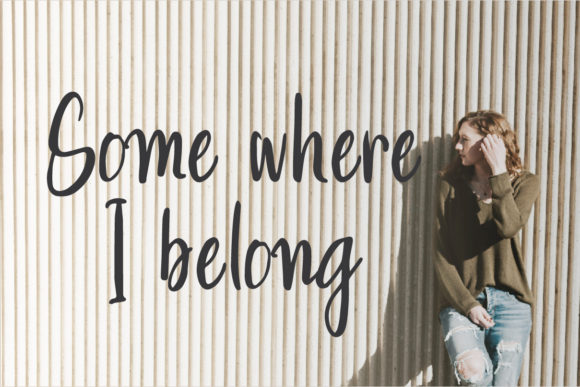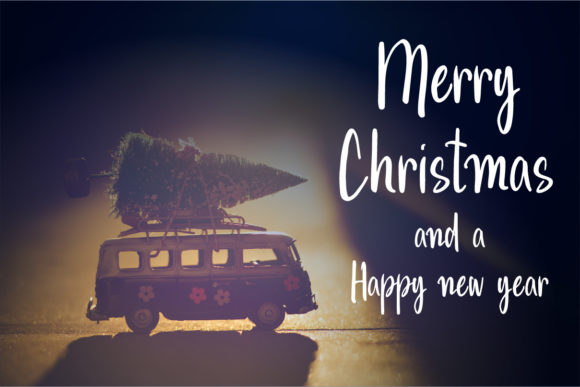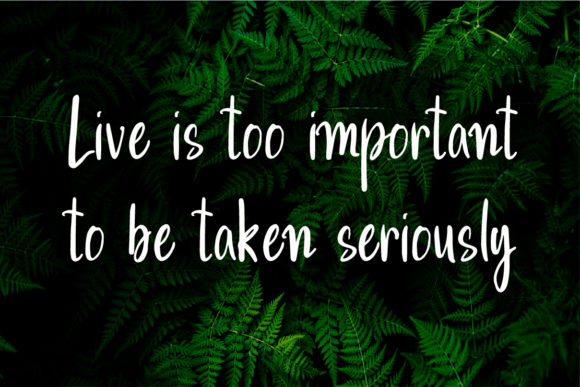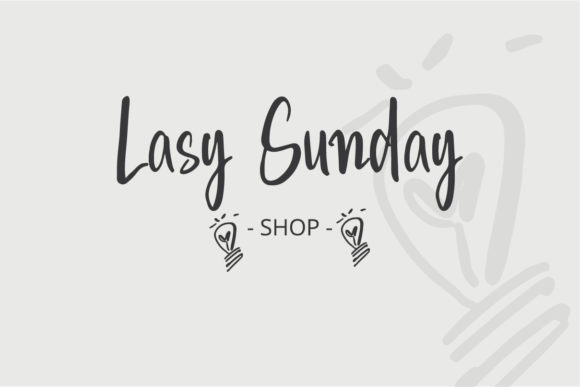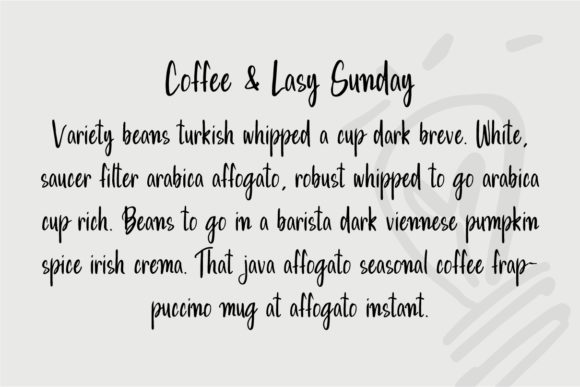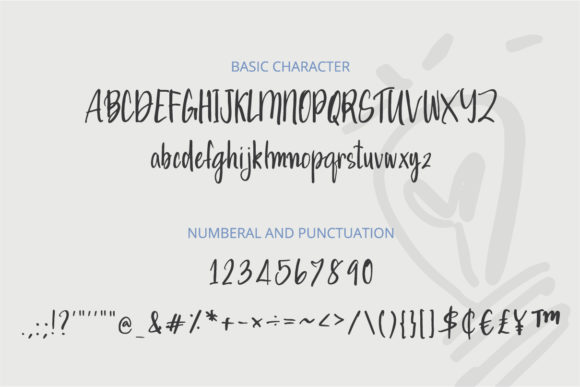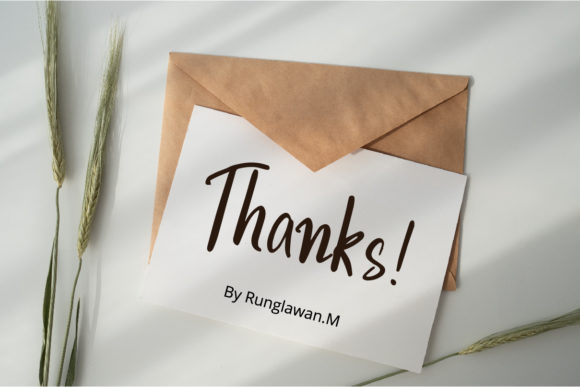
Lazy Sunday Font
About Lazy Sunday Font
Lazy Sunday is a playful, casual, and modern hand-written font. It’s perfect for craft designs, quotes, invitations, social media posts and much more!